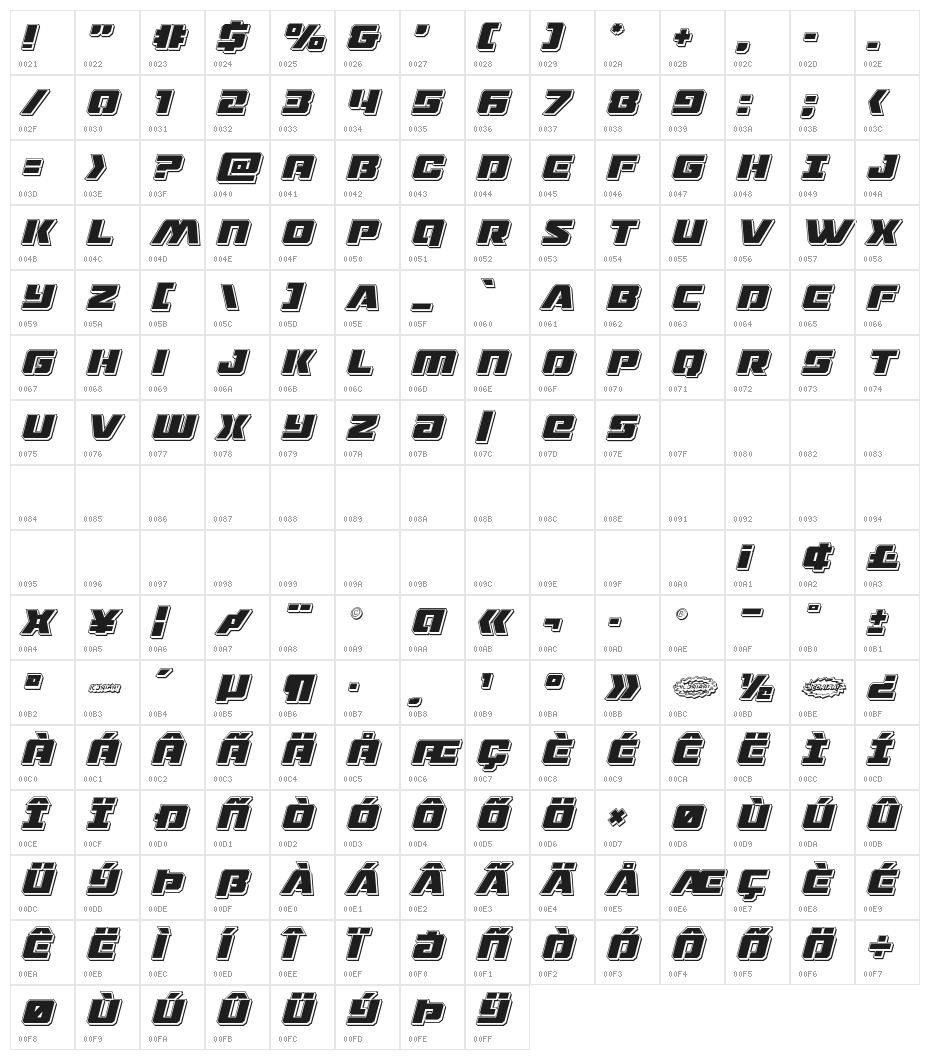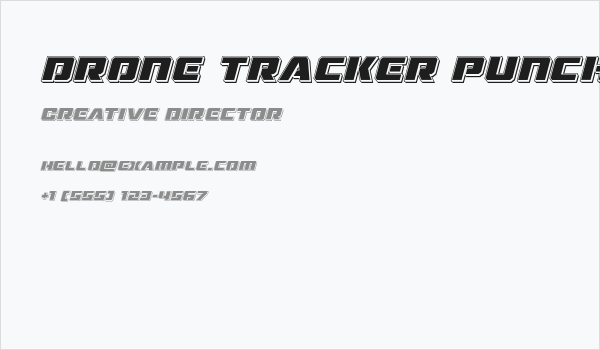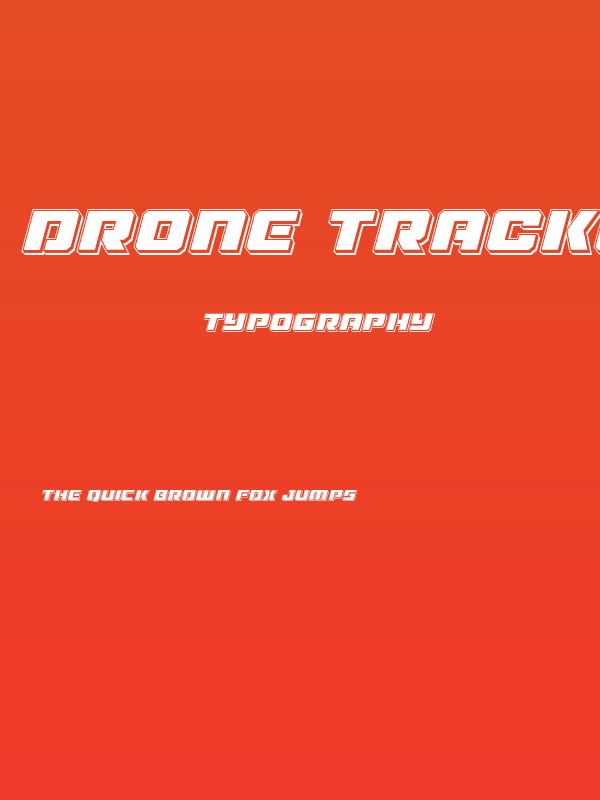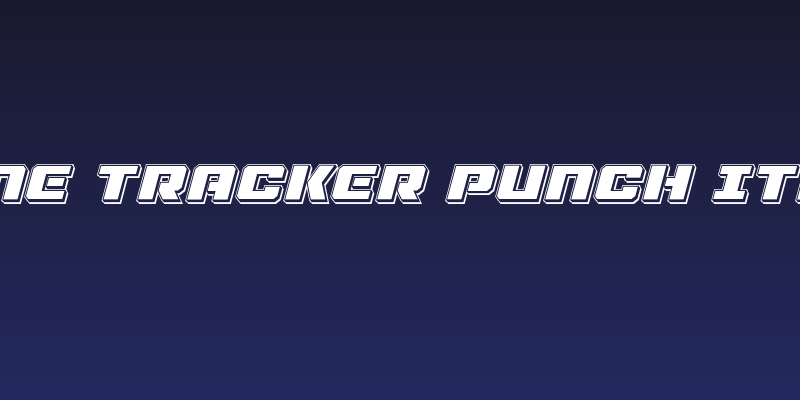
Drone Tracker Punch Italic Font
Drone Tracker Punch Italic Description
This font features a bold, italicized style with a futuristic and dynamic appearance. The characters are outlined, giving them a three-dimensional effect that enhances their visual impact. The design incorporates sharp angles and geometric shapes, creating a sense of movement and energy. The uppercase and lowercase letters maintain a consistent style, ensuring readability while adding a unique flair. The numerals and special characters are designed to match the overall aesthetic, making this font versatile for various applications.
| Proposed Projects | Ideal for sci-fi themed projects, video game titles, tech branding, and dynamic posters. |